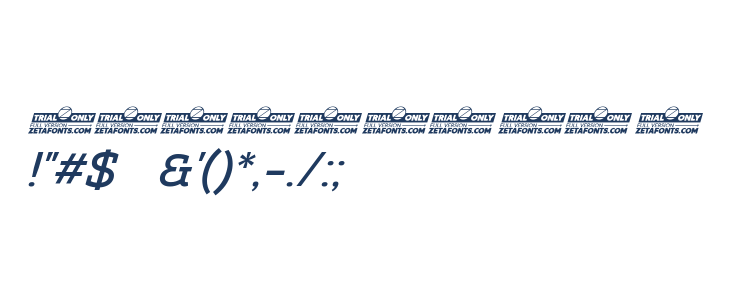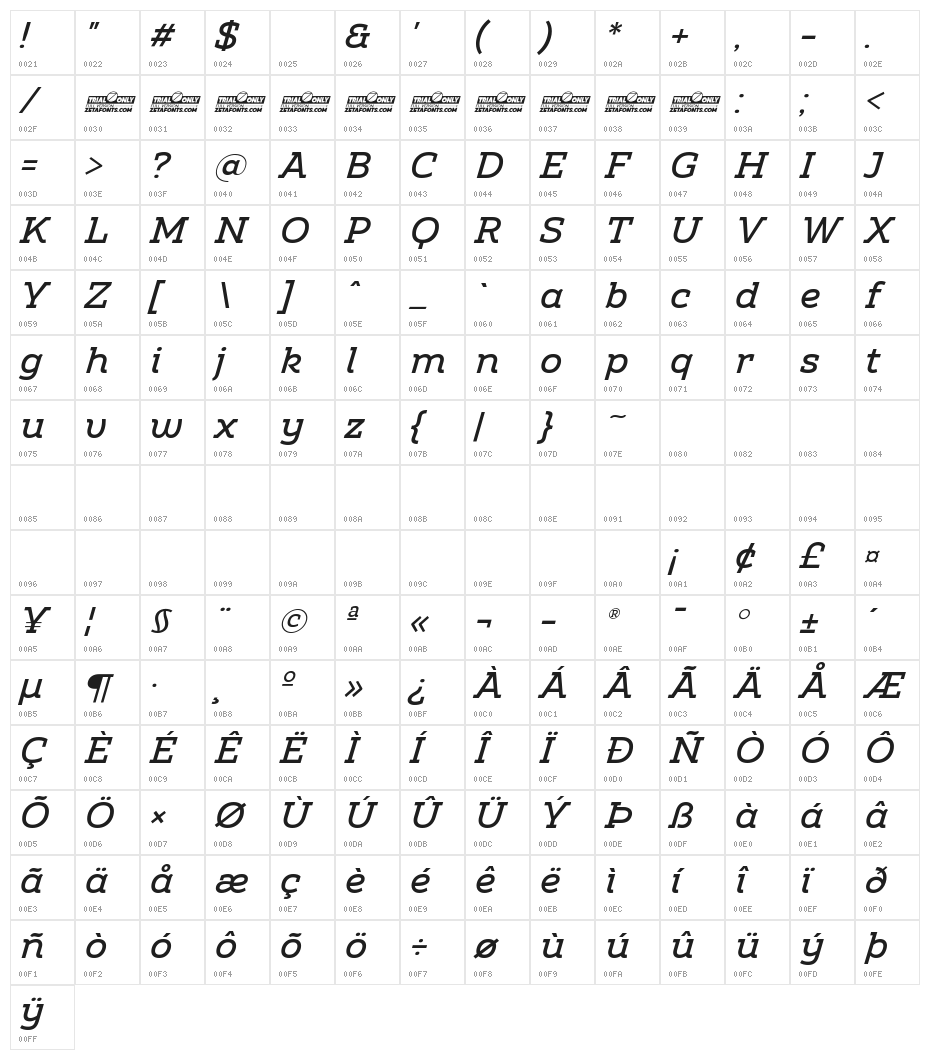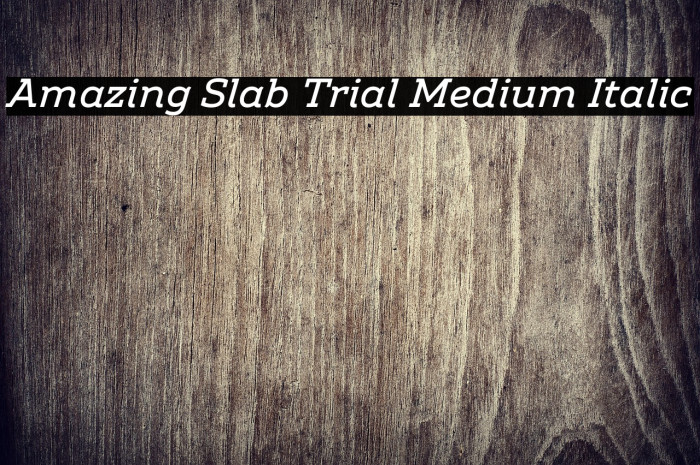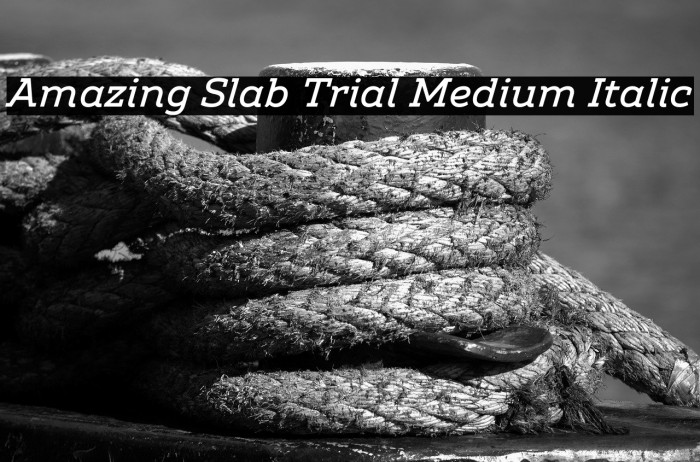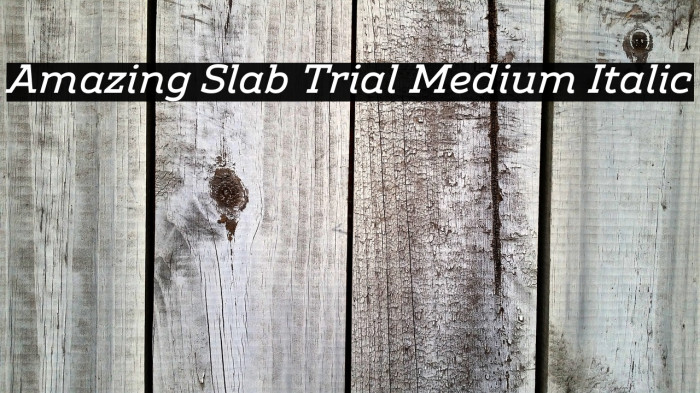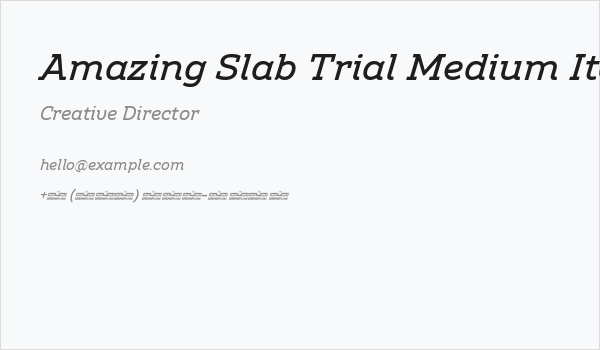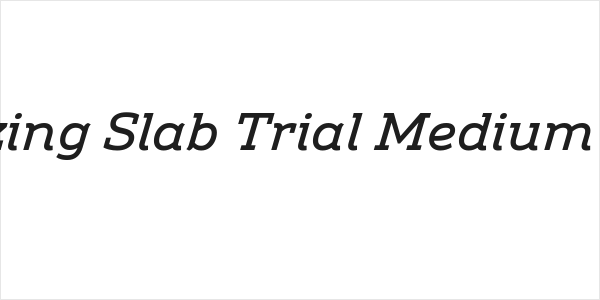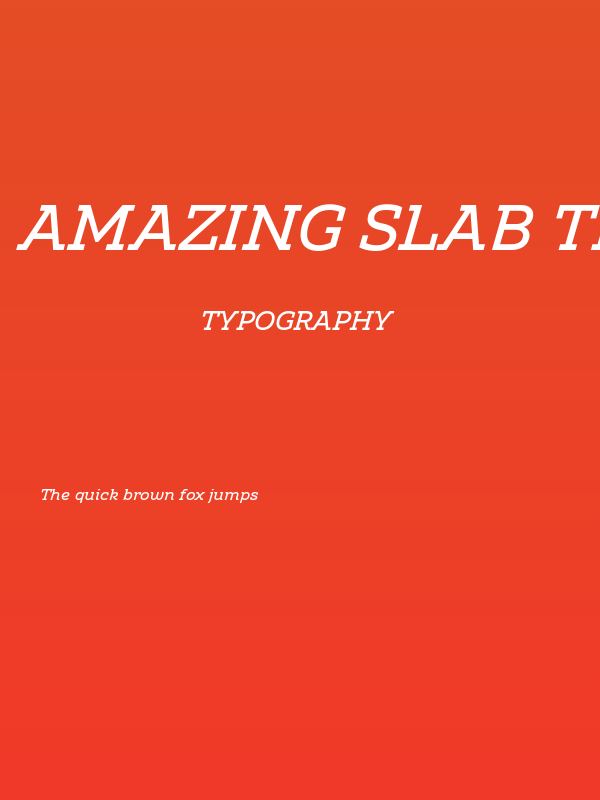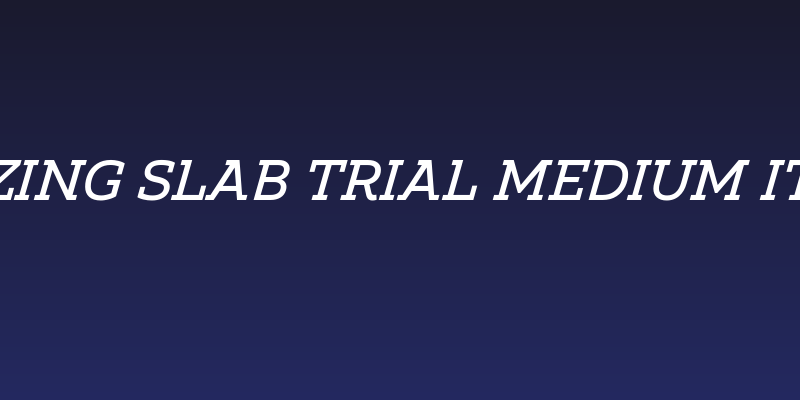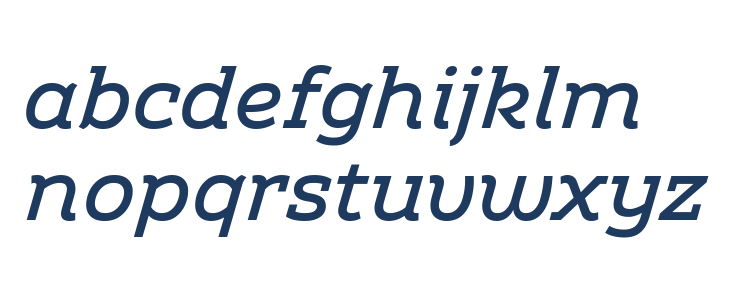
Amazing Slab Trial Medium Italic Font
Amazing Slab Trial Medium Italic Description
This font features a classic slab serif design with a modern twist, characterized by its medium weight and italic style. The serifs are pronounced yet not overly heavy, providing a balanced and readable appearance. The italic slant adds a dynamic and elegant touch, making it suitable for both formal and creative applications. The uppercase letters are bold and commanding, while the lowercase letters maintain a consistent flow. The numerals and special characters are well-integrated, ensuring versatility across various uses.